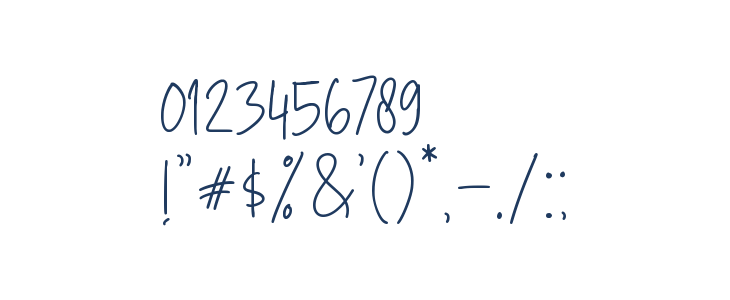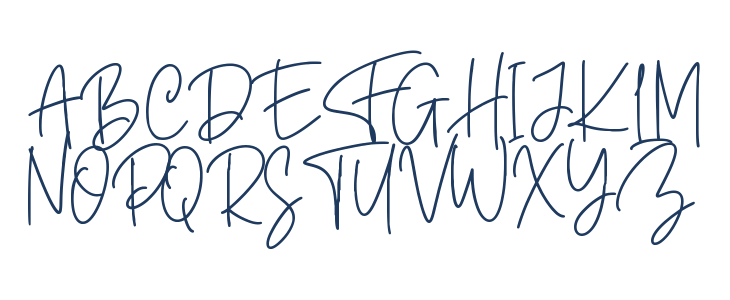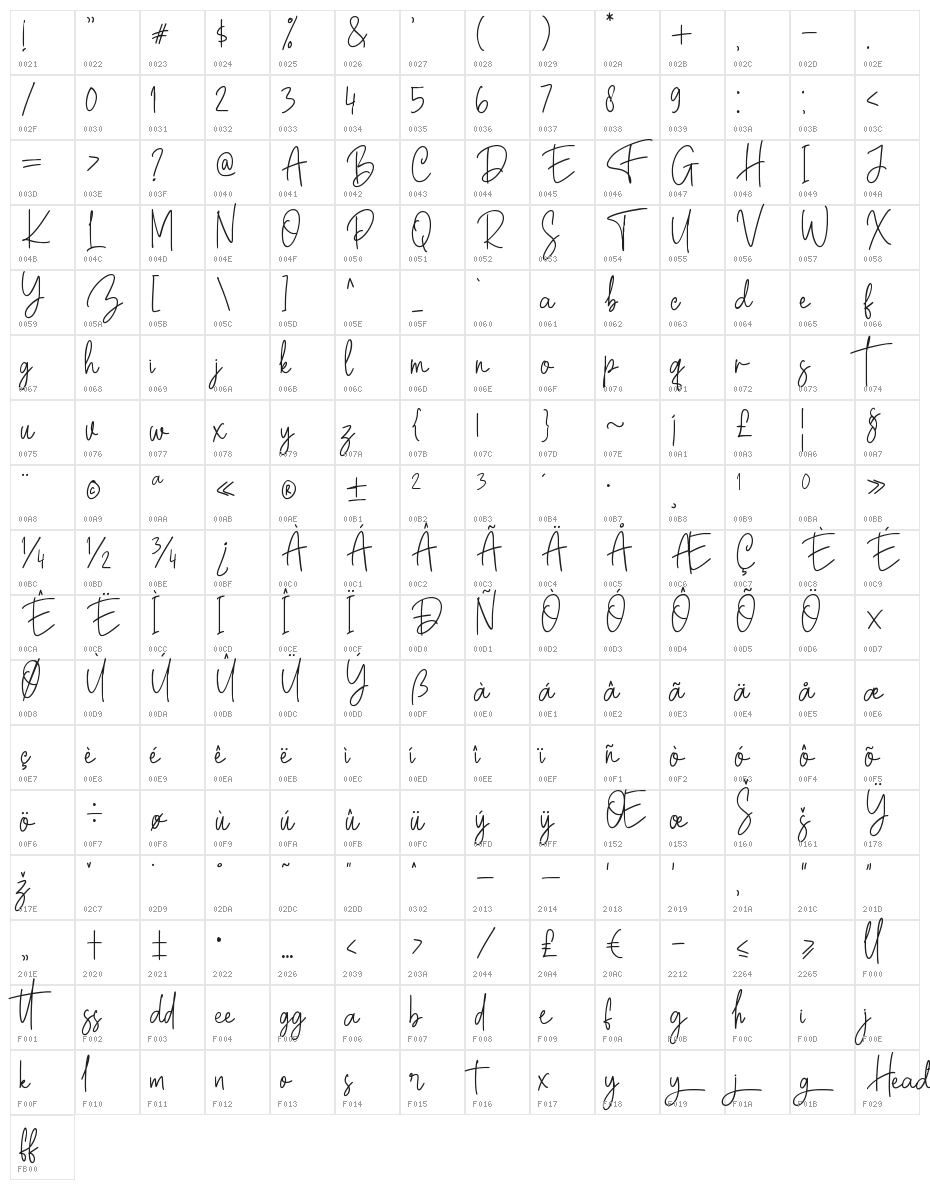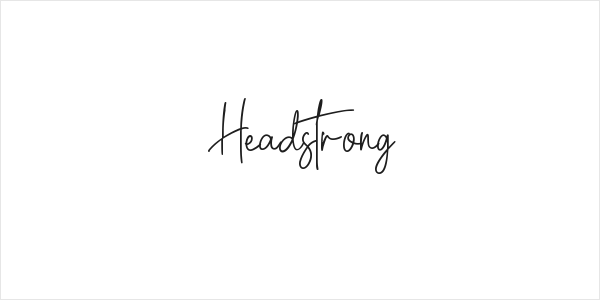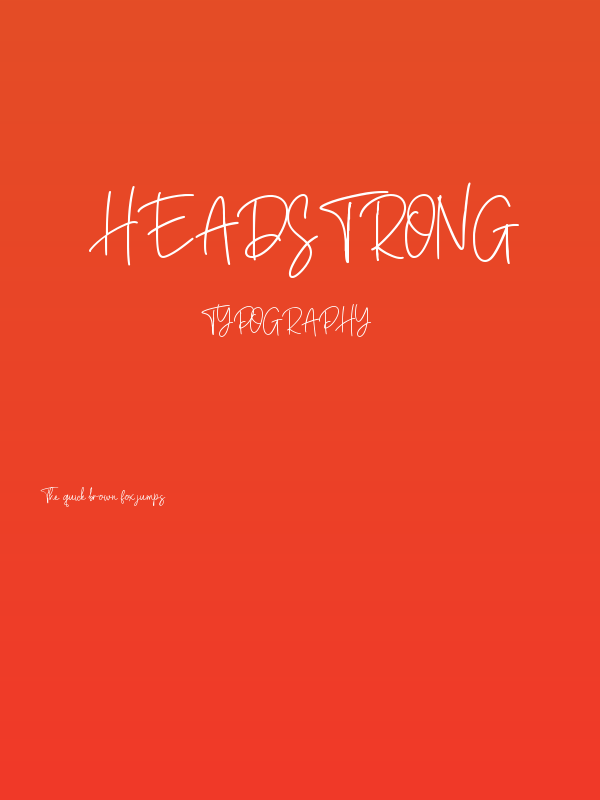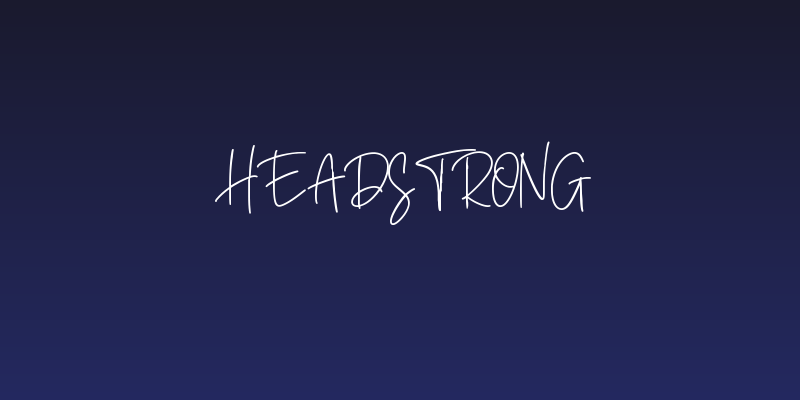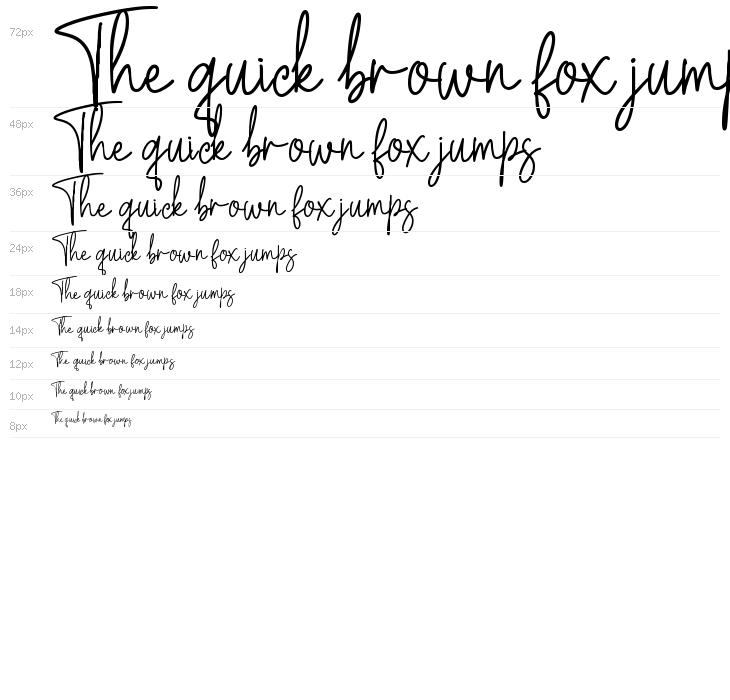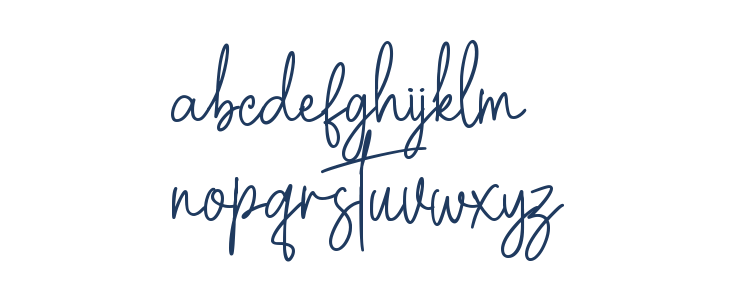
Headstrong Font
Headstrong Description
A loose, energetic handwritten script with tall, narrow letterforms and variable stroke thickness, giving a spontaneous and expressive feel. The uppercase and lowercase letters are highly legible, with playful curves and a casual, modern aesthetic.
| Width | Condensed |
| Overall Style | Modern, Decorative, Casual |
| Use Case | Logos, Headlines, Social media graphics, Invitations |
| Proposed Projects | Personal branding, social media graphics, greeting cards, informal invitations, creative posters. |